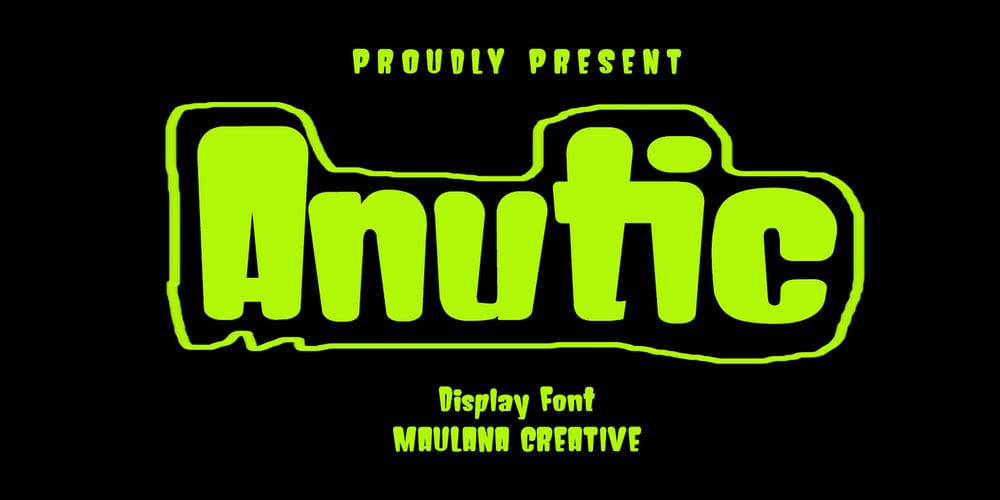
MC Anutic Font Family was designed by Gilang Maulana and published by Maulana Creative. MC Anutic contains 1 styles and family package options. Anutic display font, fun character with alternate and ligatures. To give you an extra creative work. Anutic display font support multilingual language.Many Thanks,Maulana Creative